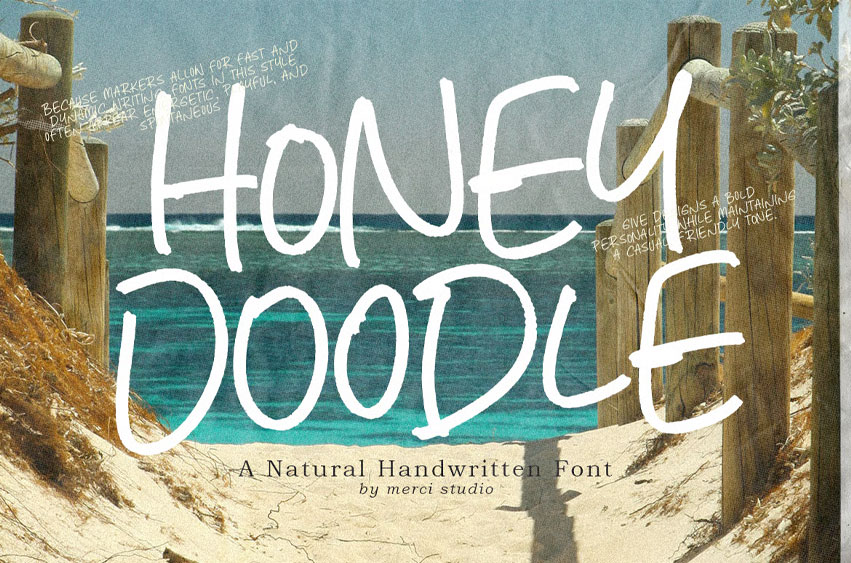
Honey Doodle Font
Honey Doodle Font is a natural handwritten font that brings spontaneity, warmth, and personality to your designs. Its casual yet energetic strokes make it perfect for projects that need an authentic, approachable, and creative touch. Whether you’re designing posters, packaging, branding, or social media graphics, Honey Doodle adds a playful yet professional character that feels fresh and modern.
With its natural flow and hand-crafted style, this font captures the charm of handwritten notes while remaining versatile enough for both casual and impactful typographic work. It’s the ideal choice for designers who want to inject originality and liveliness into their creations.
• Unique Hand-Drawn Style